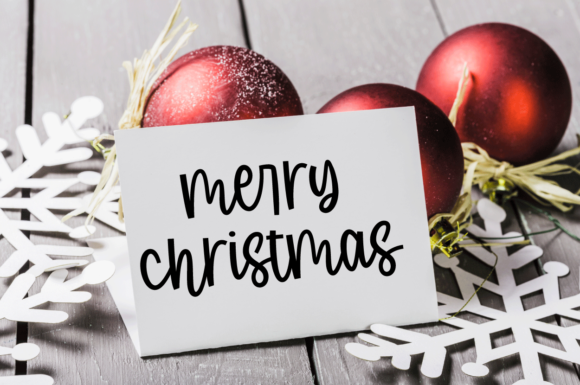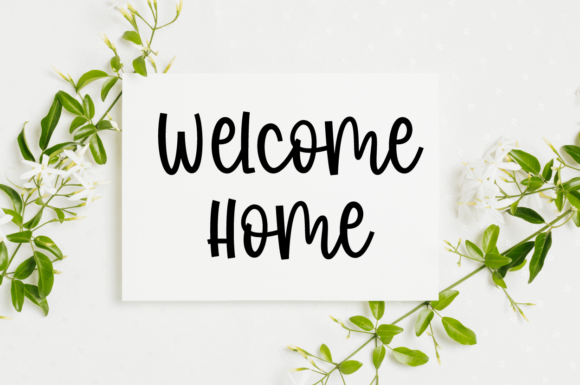
March Blista Font
db-ku.com - Script & Handwritten -- March Blista is a cute and unique handwrtten font. Its friendly feel makes this font incredibly versatile, fitting a wide range of contexts. It looks stunning on thank you cards, quotes, greeting cards, logos, business cards and every other design which needs of a art. Add it to your creative ideas and notice how it makes them stand out!